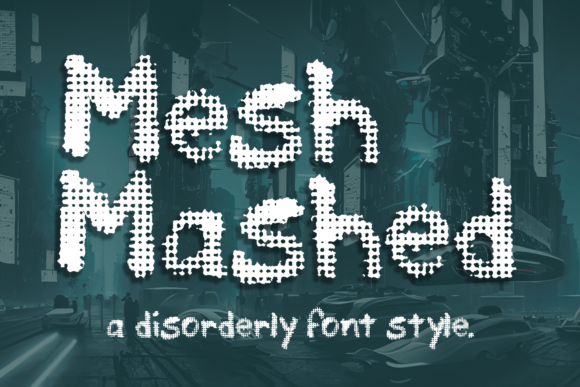
Unleash your creativity with "Mesh Mashed," the extraordinary large print font that weaves together the elegance of mesh with the ruggedness of grunge. This captivating font is meticulously crafted to leave an indelible mark on your designs. Its intricate mesh-like patterns and bold, raw edges add a touch of edgy sophistication, ensuring that your projects stand out from the crowd.
If you're a graphic designer, illustrator, artist, or creative professional seeking a font that embodies both power and grace, "Mesh Mashed" is your perfect match. This font is a true game-changer, transforming your designs into visually stunning masterpieces that command attention. Its unique blend of mesh and grunge elements creates a striking aesthetic that is both modern and timeless.
With "Mesh Mashed," you'll have the freedom to express your individuality and make a lasting impression on your audience. Whether you're working on logos, posters, branding materials, social media graphics, or any other creative project, this font will elevate your designs to new heights.
Don't settle for ordinary fonts that blend into the background. Embrace the bold, the unique, and the unforgettable with "Mesh Mashed." This font is more than just a collection of letters; it's a statement piece that will add a touch of magic to your creative endeavors.